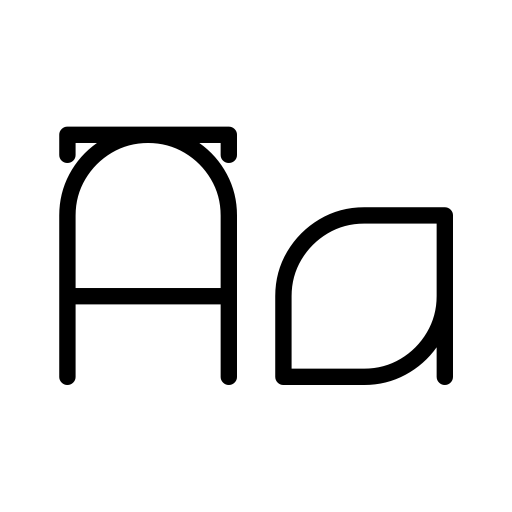
BAMBOO chopsticks is a unique, modern sans serif font characterized by its thin, geometric lines and open, airy letterforms that evoke an elegant yet playful feel. Its distinctive shapes, with a mix of sharp angles and smooth curves, give it a futuristic and artistic vibe, making it ideal for creative branding, logos, and editorial designs that seek a contemporary, stylized touch. This font works well where originality and a light, sophisticated presence are desired.
BAMBOO chopsticks Font
About BAMBOO chopsticks Font